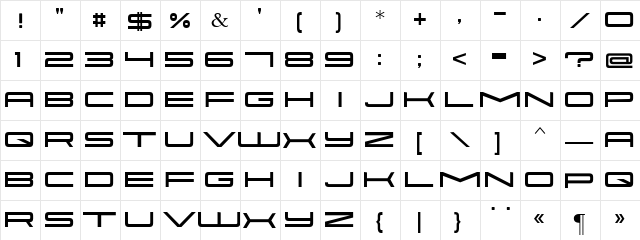
Porsche Regular
Design Context for Porsche Typeface
Porsche offers clean, dependable letterforms without strong stylistic allegiance, making it a practical choice for designers who need flexibility.
Pro Tip: Pair Porsche with a font of contrasting weight or personality to build a more expressive typographic hierarchy.